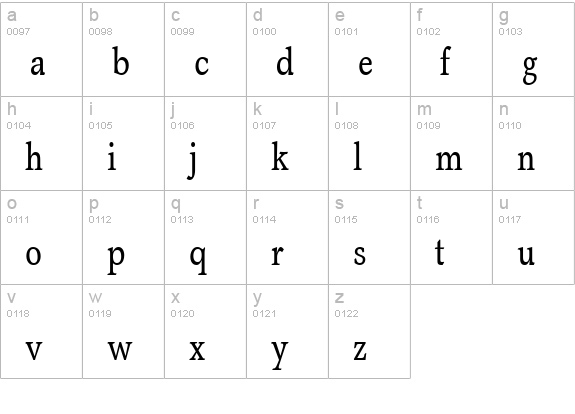
Axiomatic Condensed SSi Condensed Font Details
Axiomatic Condensed SSi Condensed is a distinctive, condensed-width variant in the Axiomatic typeface family \xE2\x80\x94 well suited to design and typography projects.
Axiomatic Condensed SSi Condensed font is a sleek and modern typeface that exudes sophistication and professionalism. With its condensed design, this font is perfect for projects that require a clean and streamlined look. Its sharp lines and geometric shapes give it a contemporary feel, making it ideal for a wide range of design applications. What sets Axiomatic Condensed SSi Condensed font apart is that it is not only stylish and versatile but also free to download. You can easily access this font at FontsMarket.com without any cost, making it a valuable asset for designers, creatives, and anyone looking to elevate their projects with a high-quality typeface. Whether you're working on branding materials, editorial designs, web graphics, or any other project that requires a modern touch, Axiomatic Condensed SSi Condensed font is sure to make a statement. Download it for free today and add a touch of sophistication to your creations.